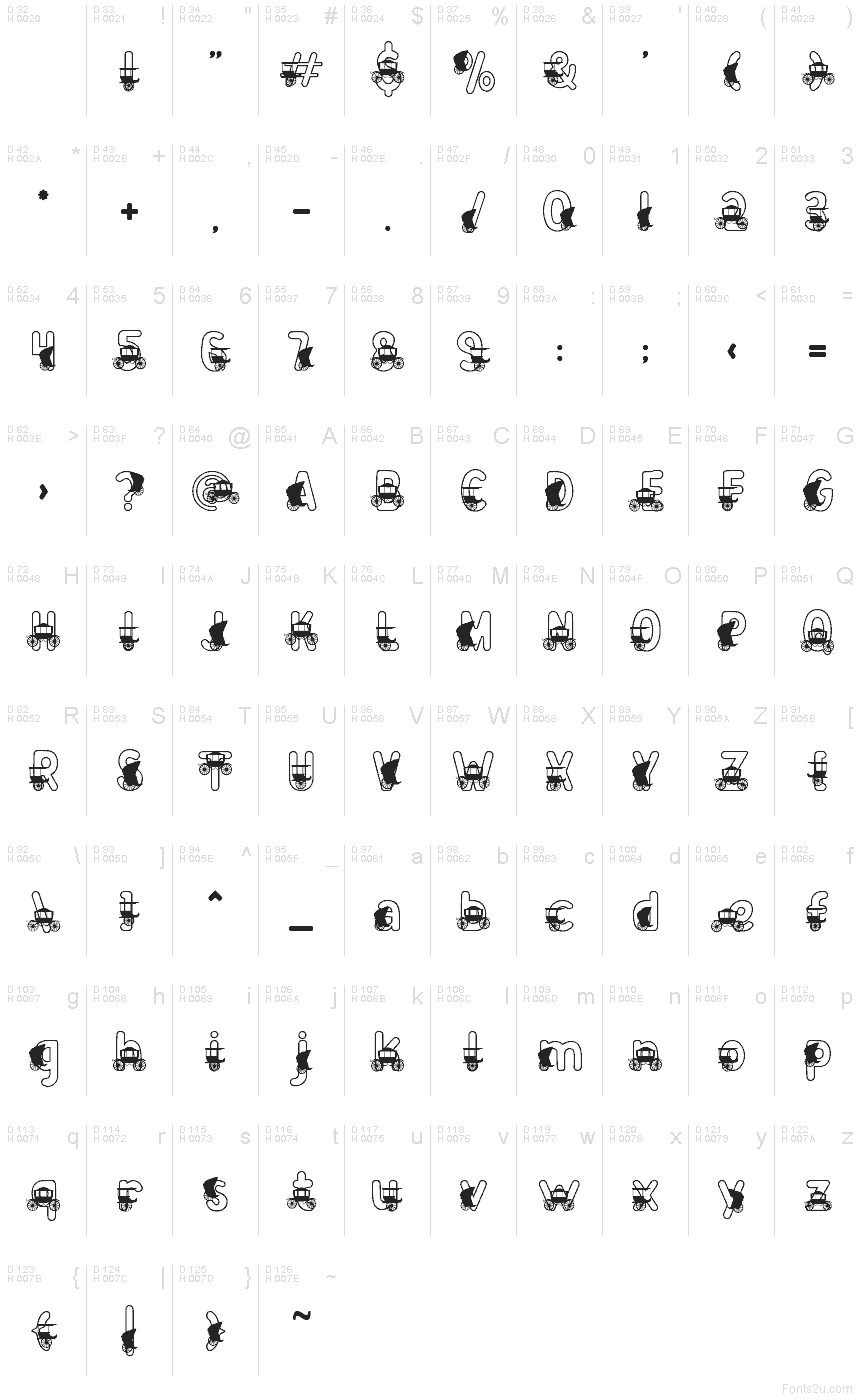
Zany Route Wagon
Zany Route Wagon font by PutraCetol Studio is a decorative display font with a wild sense of eccentricity. Almost psychedelic, each character appears illustrated rather than traditionally designed – adding whimsical elements and novel designs that separate this free font from the rest.
Zany Route Wagon can be featured in art-related products like exhibitions, album covers, and magazine covers. It would look even more stunning on book covers, blog banners, social media posts, CD covers, NFTs projects and business cards. Consider it for your branding identity too such as logos or packaging designs.